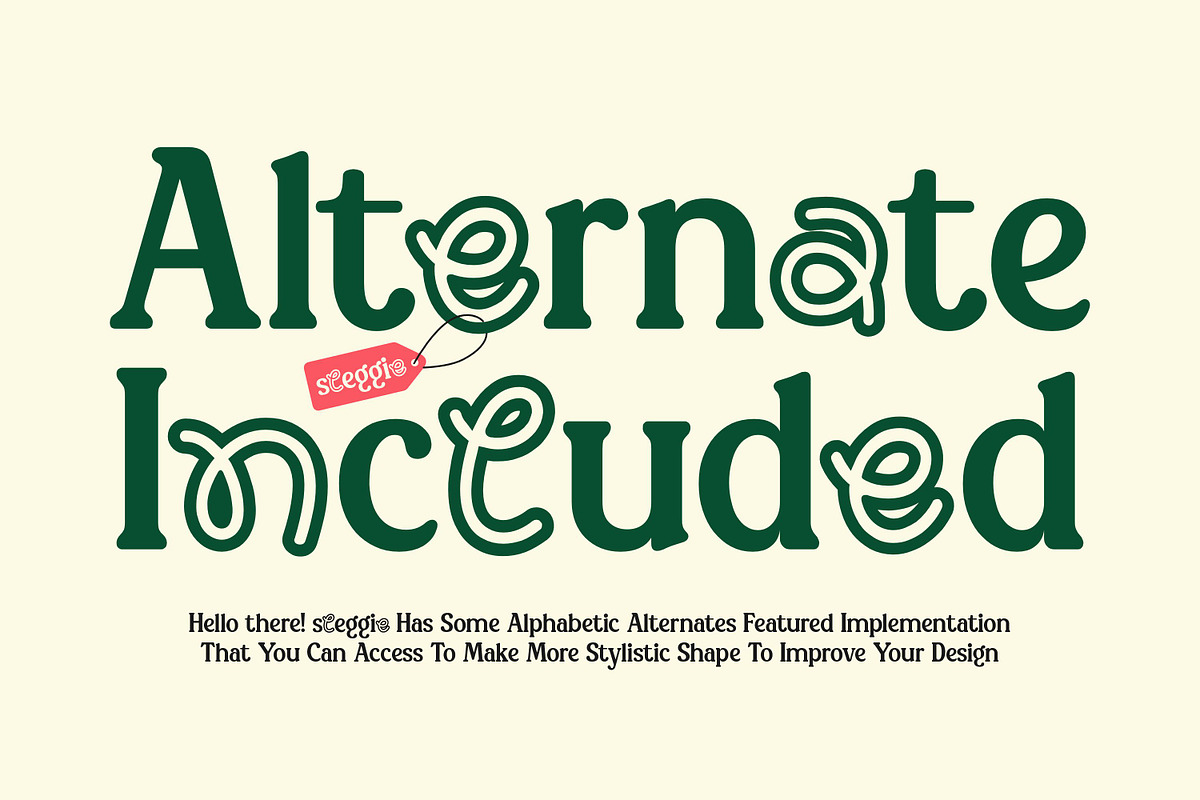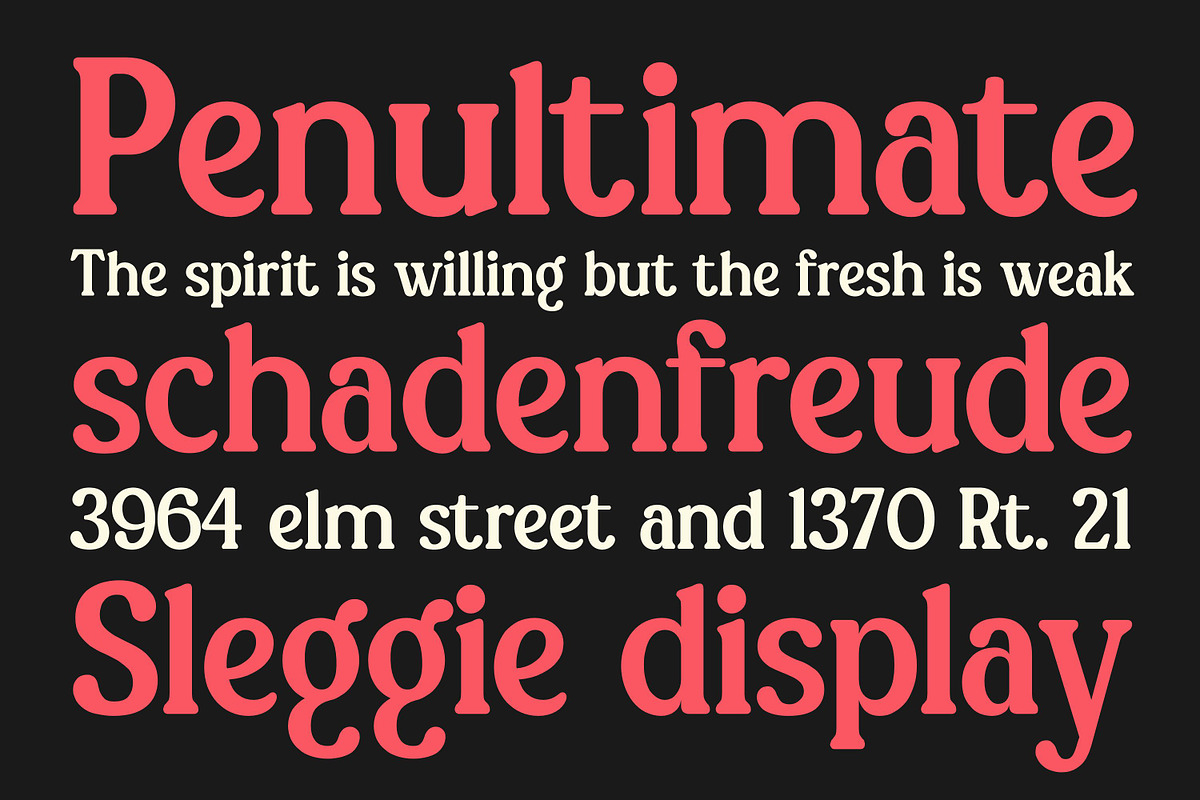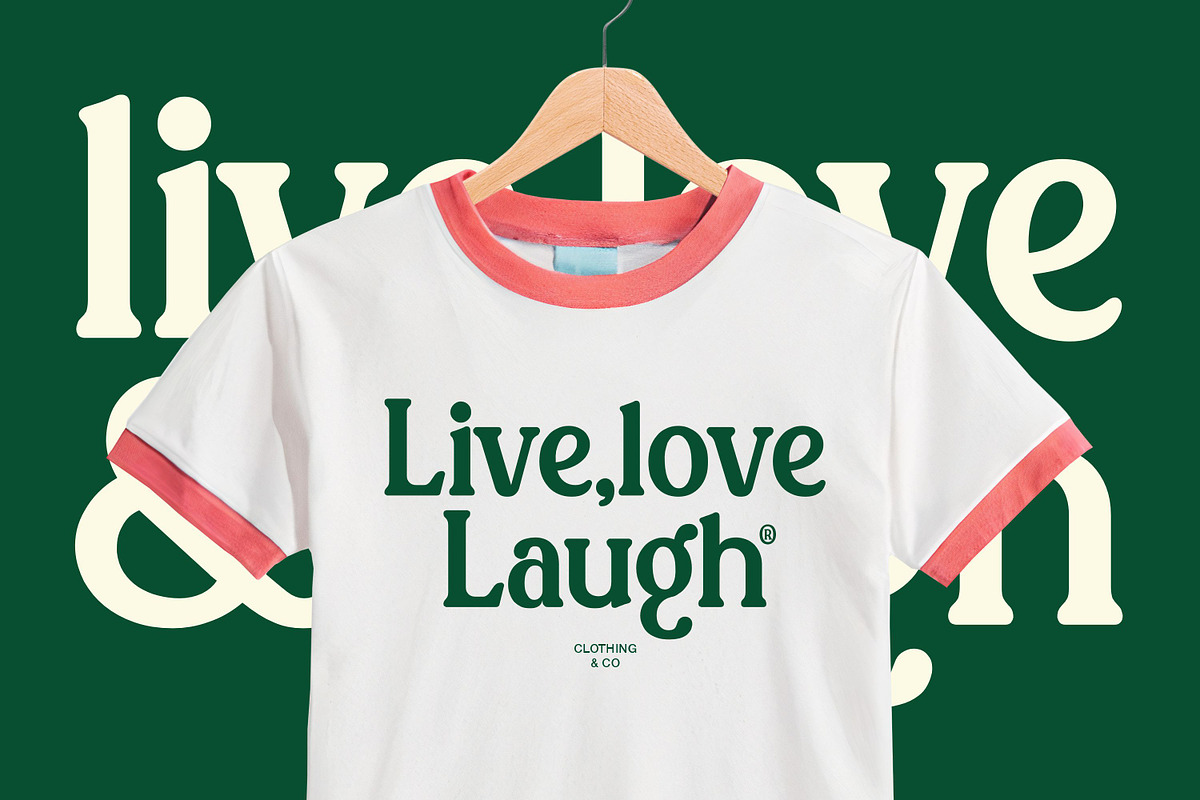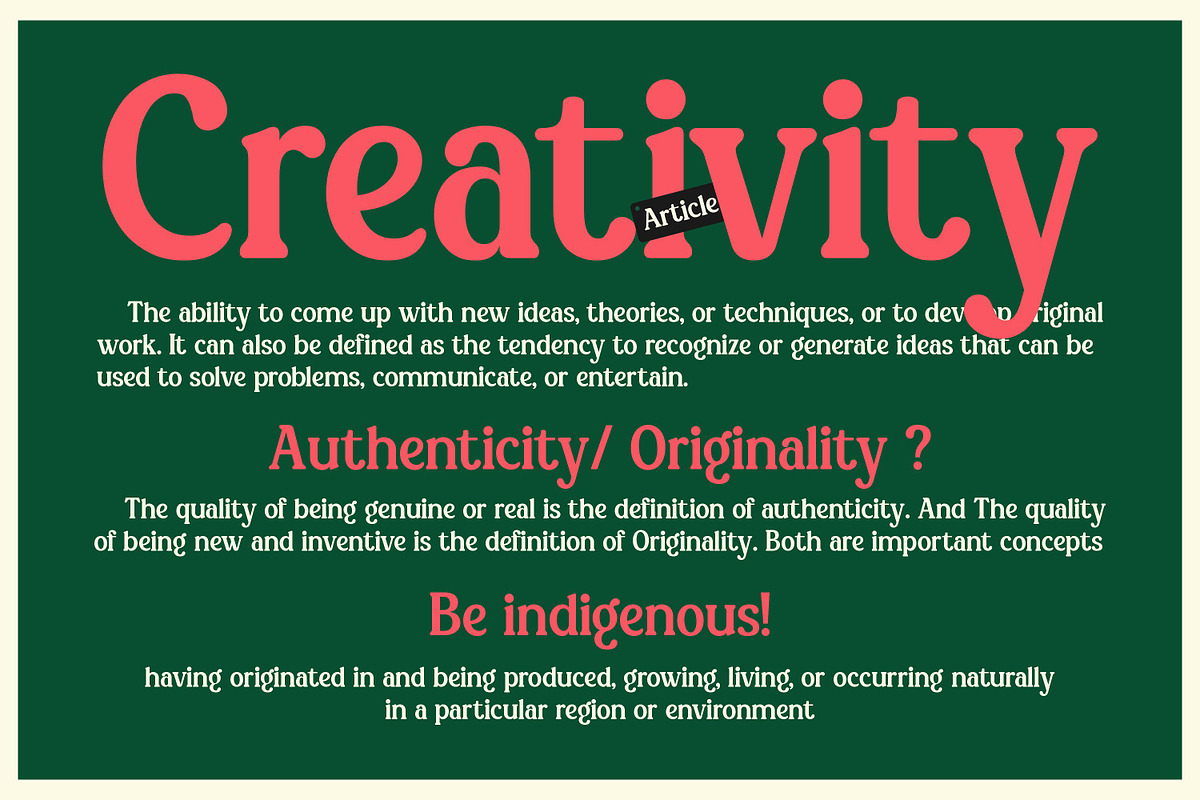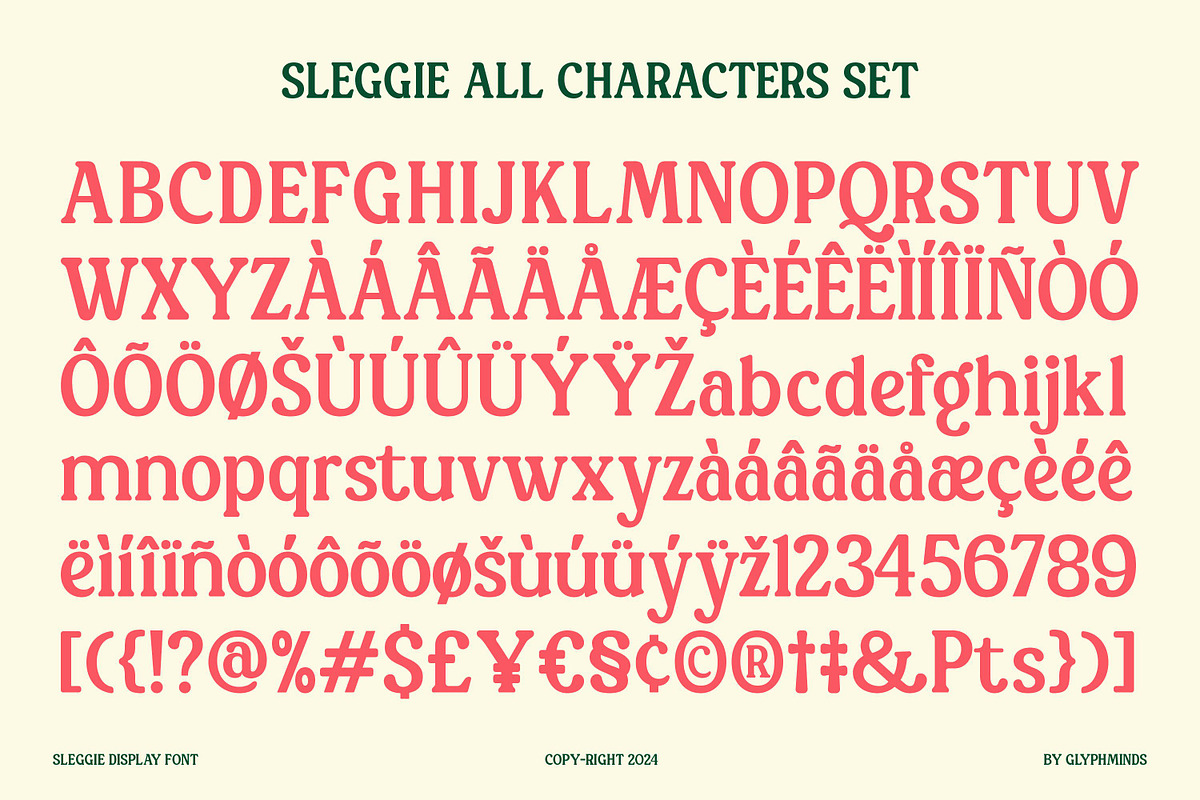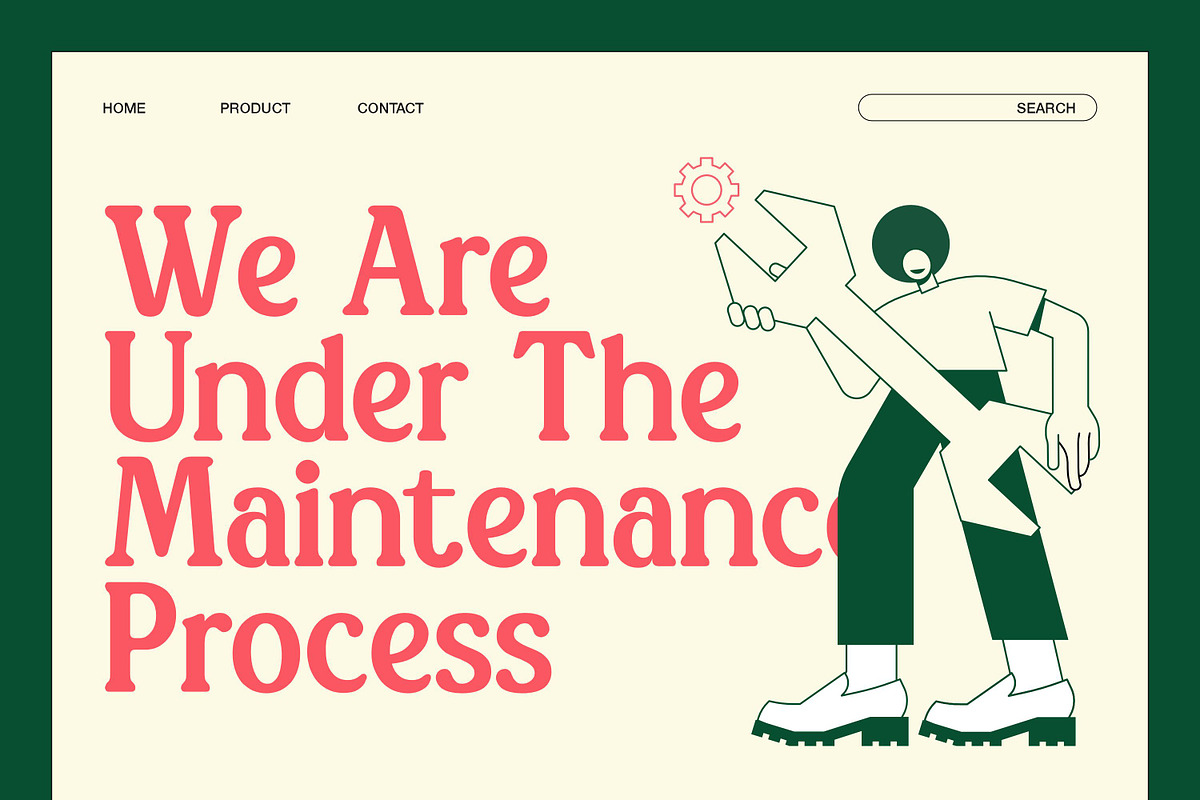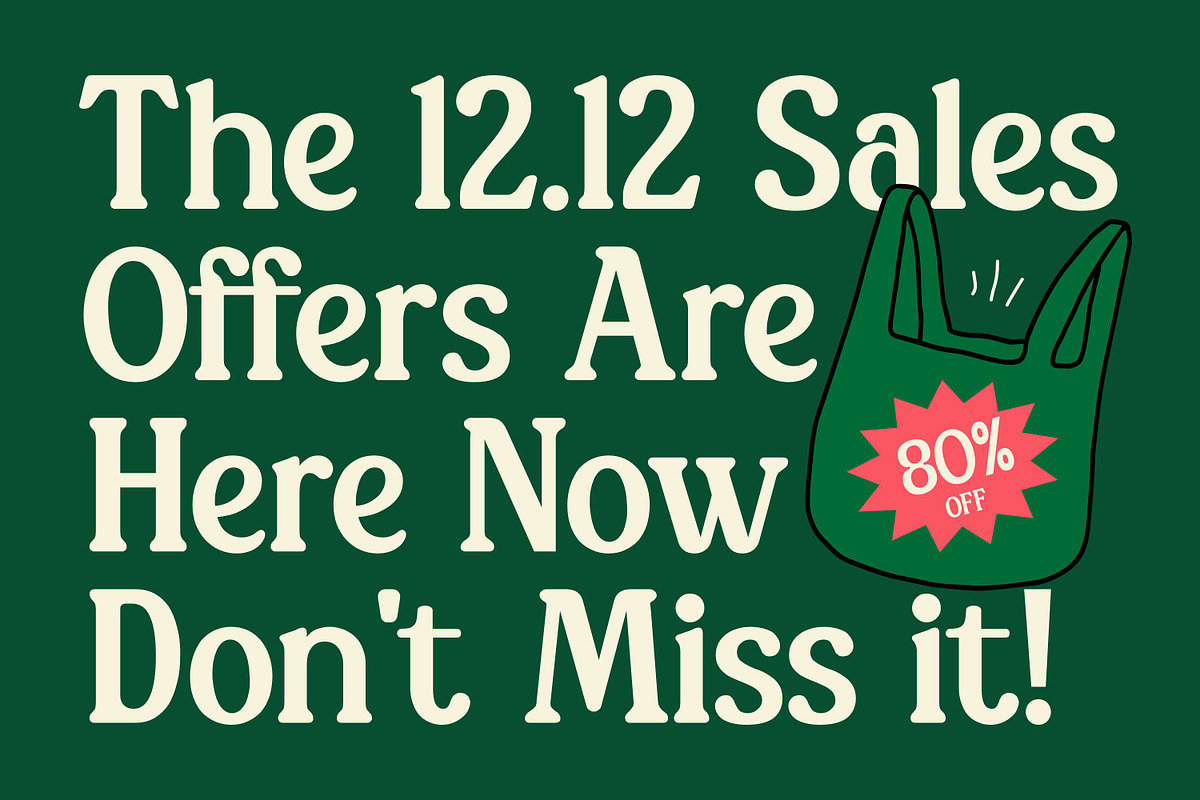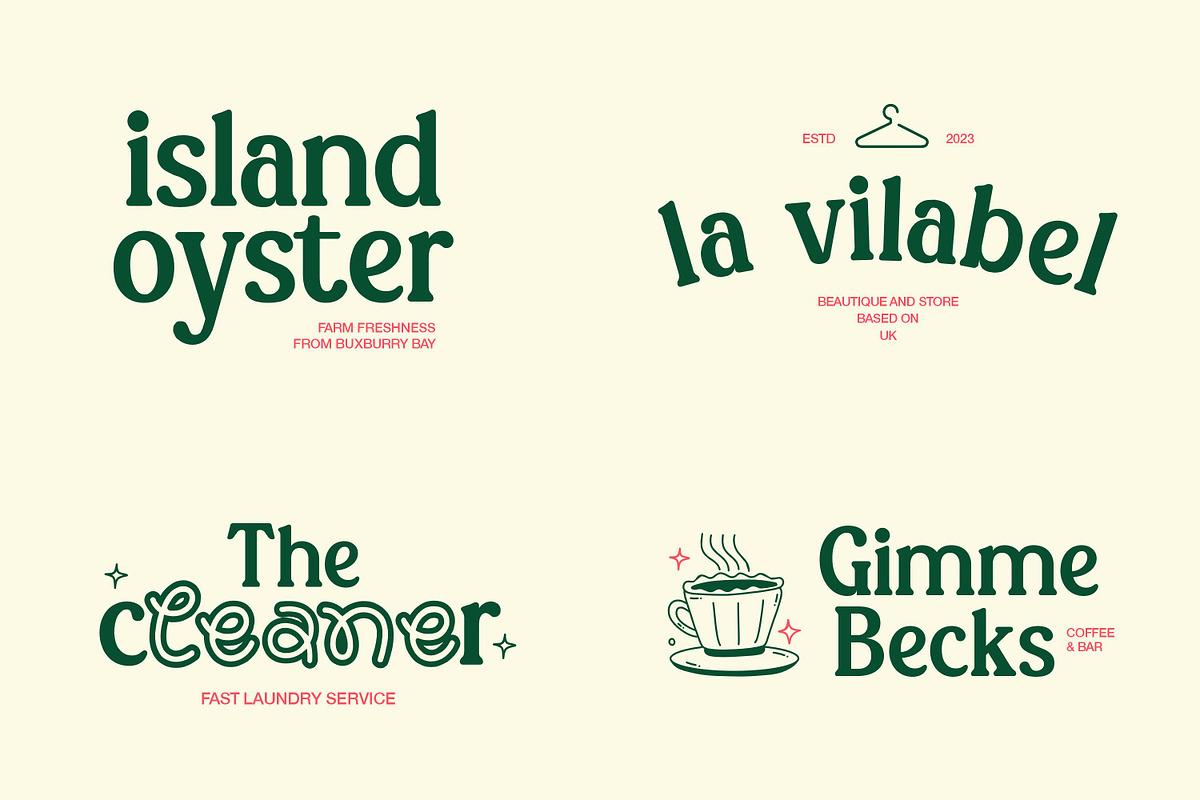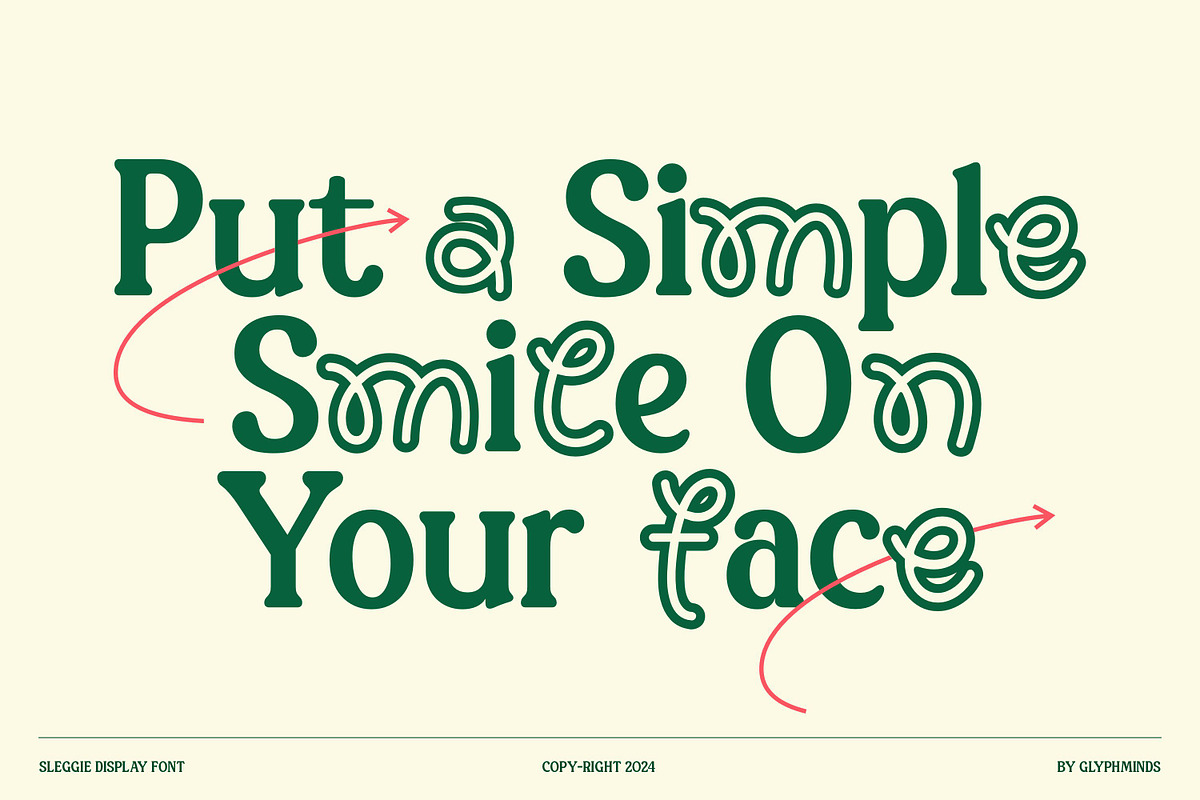
Sleggie Display Font
Looking for a unique and fun display font that grabs attention? Sleggie is the perfect blend of softness and creativity, ideal for adding a playful touch to any project. This bold yet smooth slab font features charming curves and quirky flourishes, making it perfect for branding, logos, packaging, and more. Whether you're designing for print or digital, Sleggie gives your work a friendly, approachable vibe with a creative twist. Elevate your designs with this versatile font and make a lasting impression.